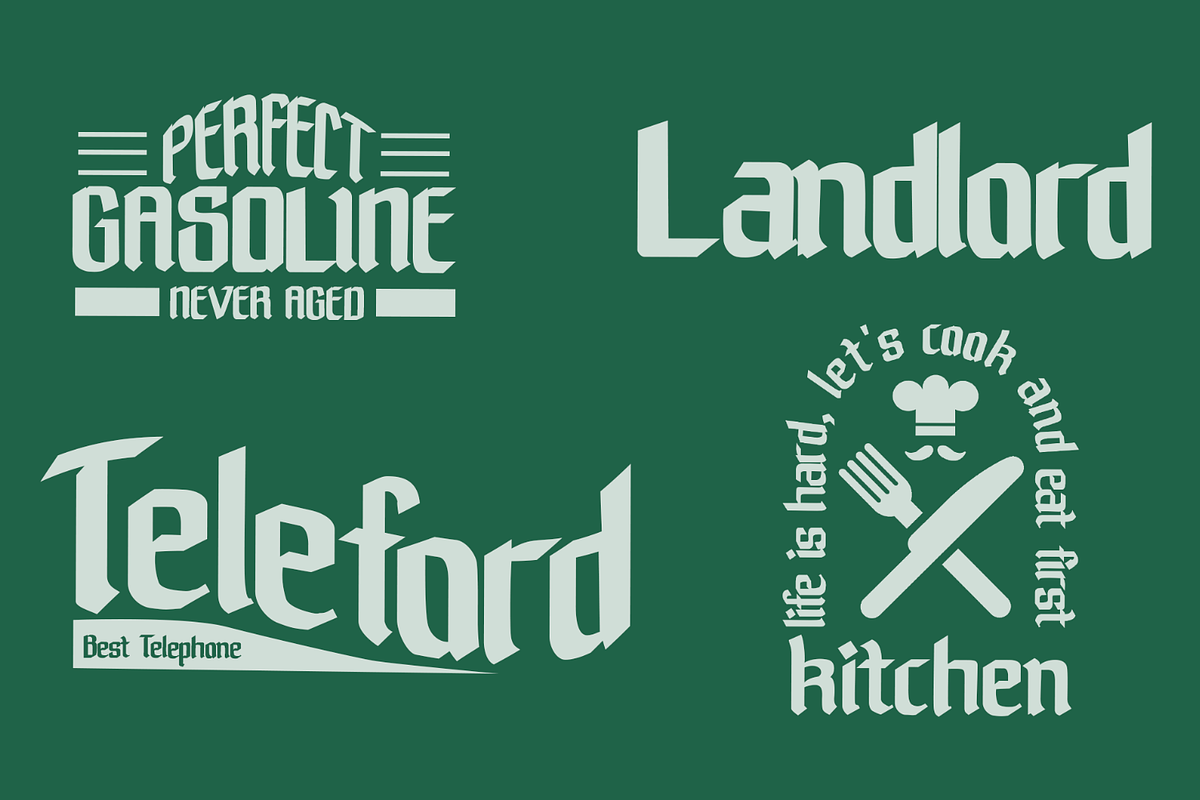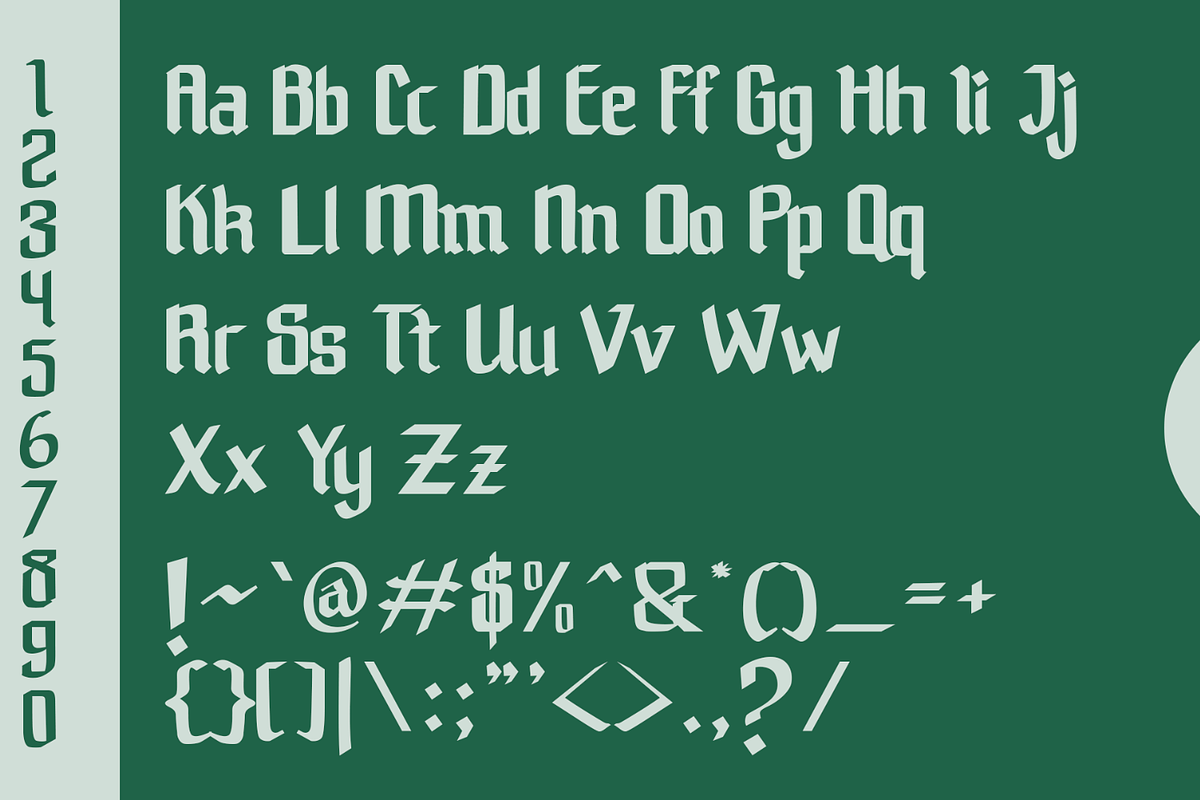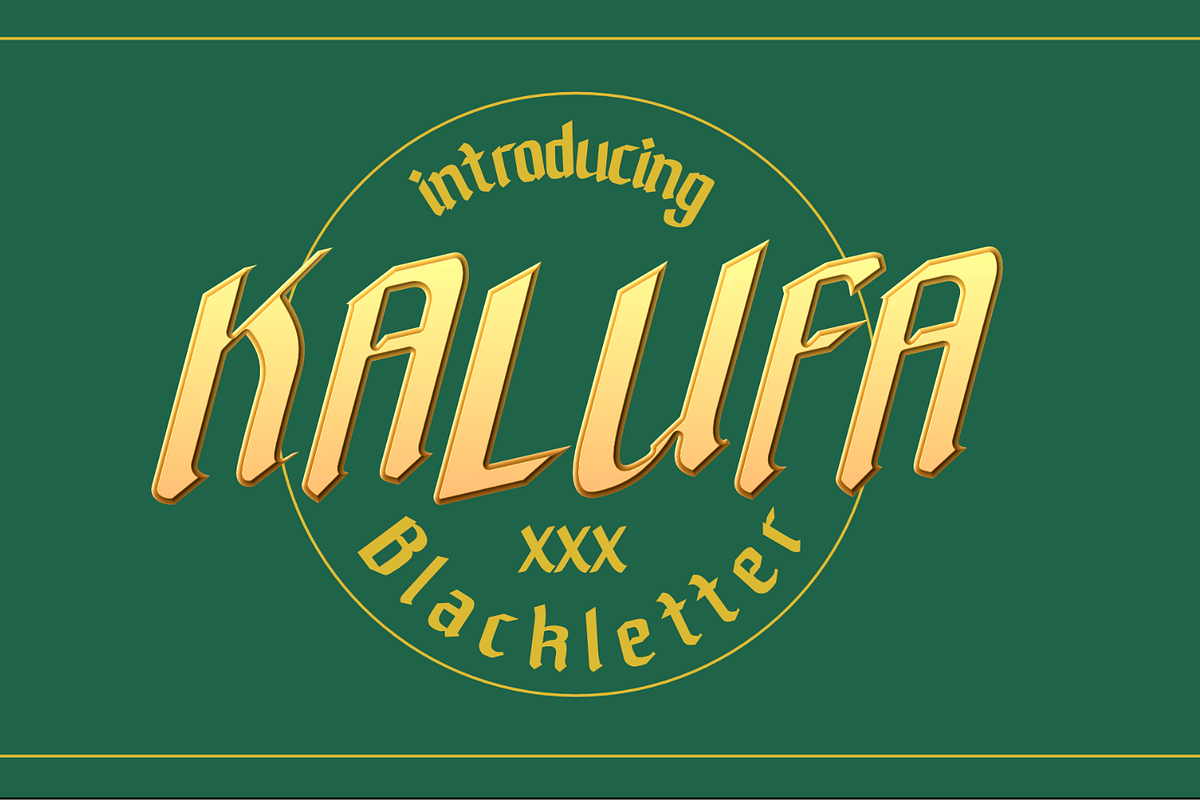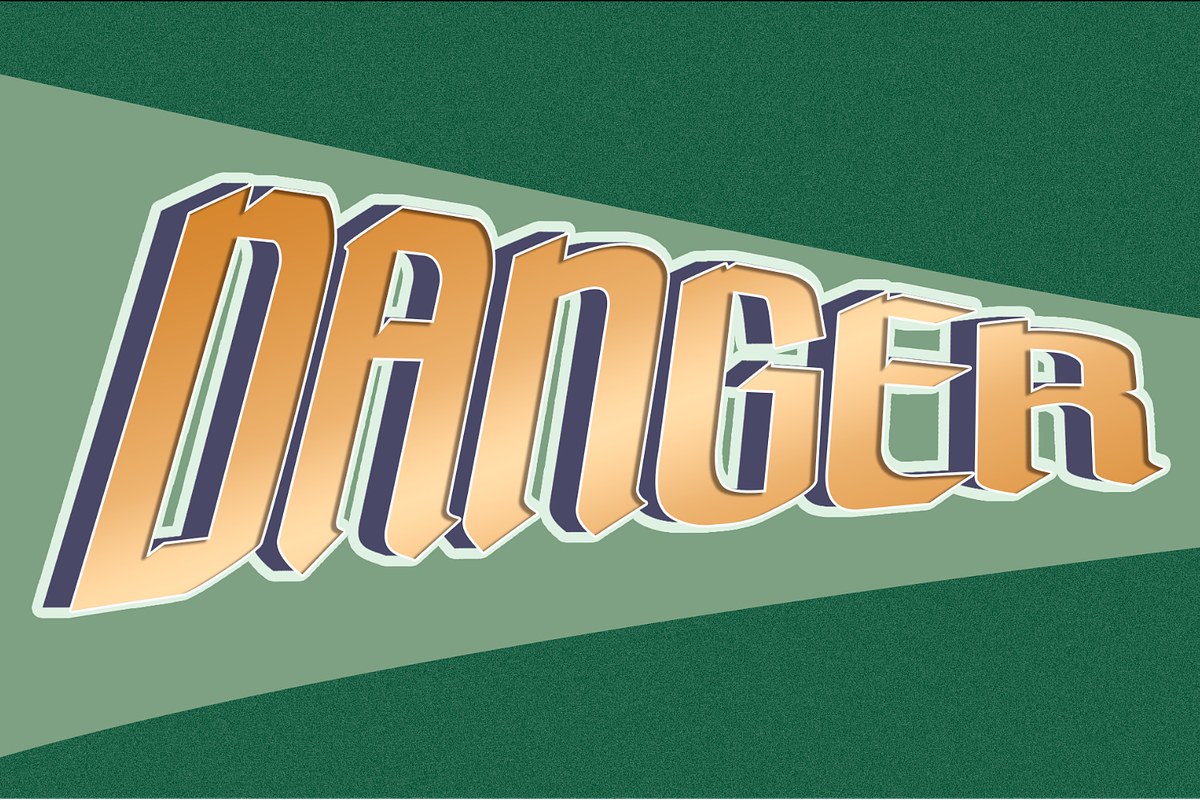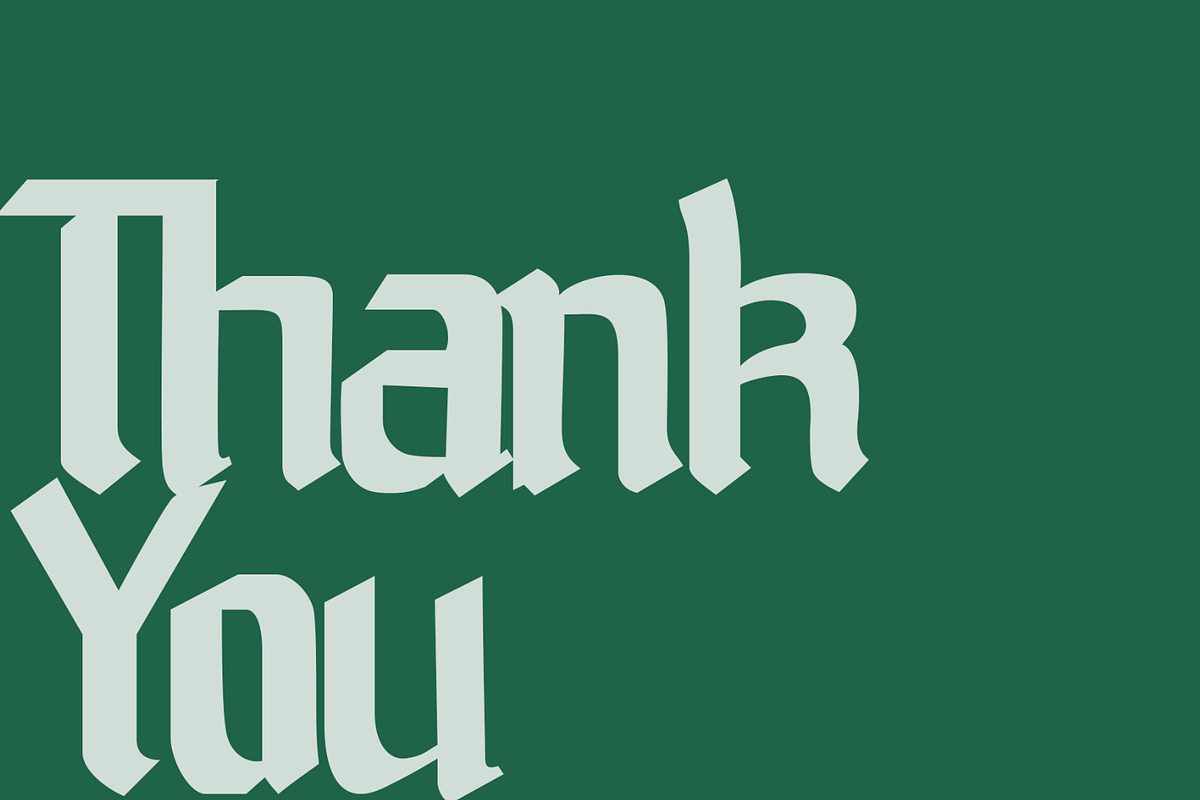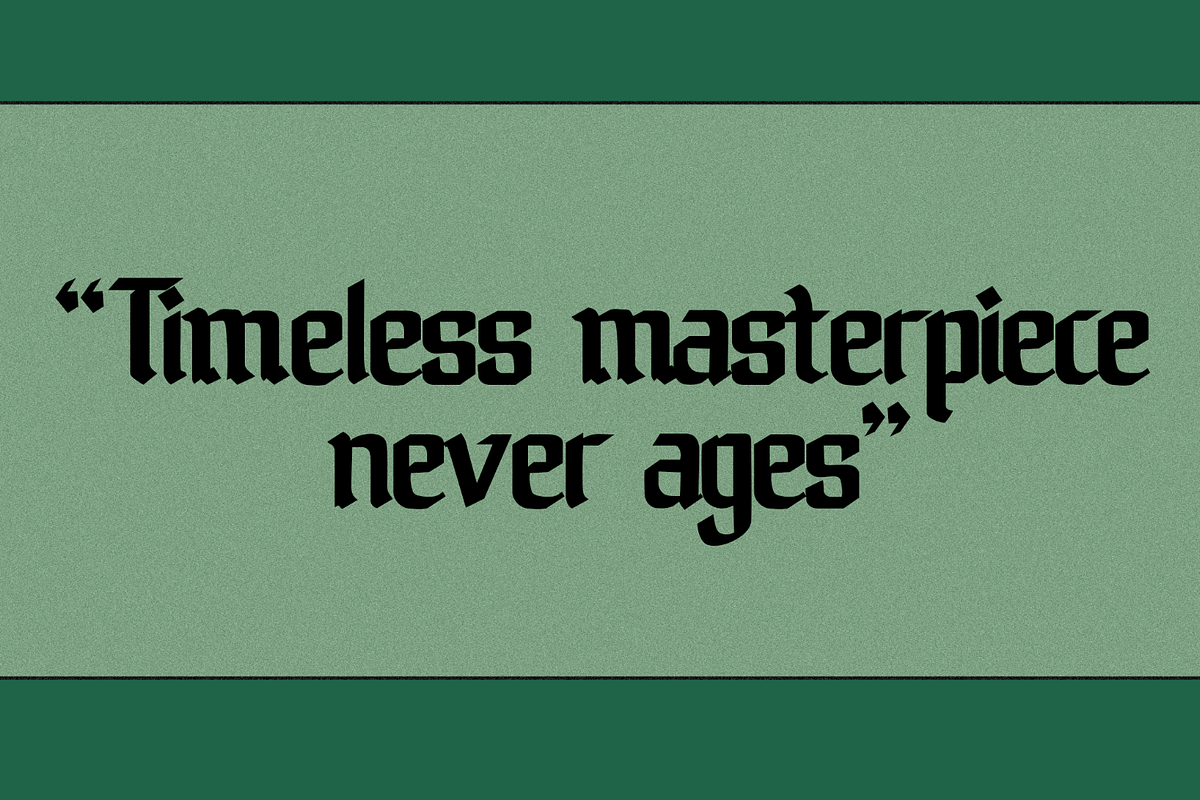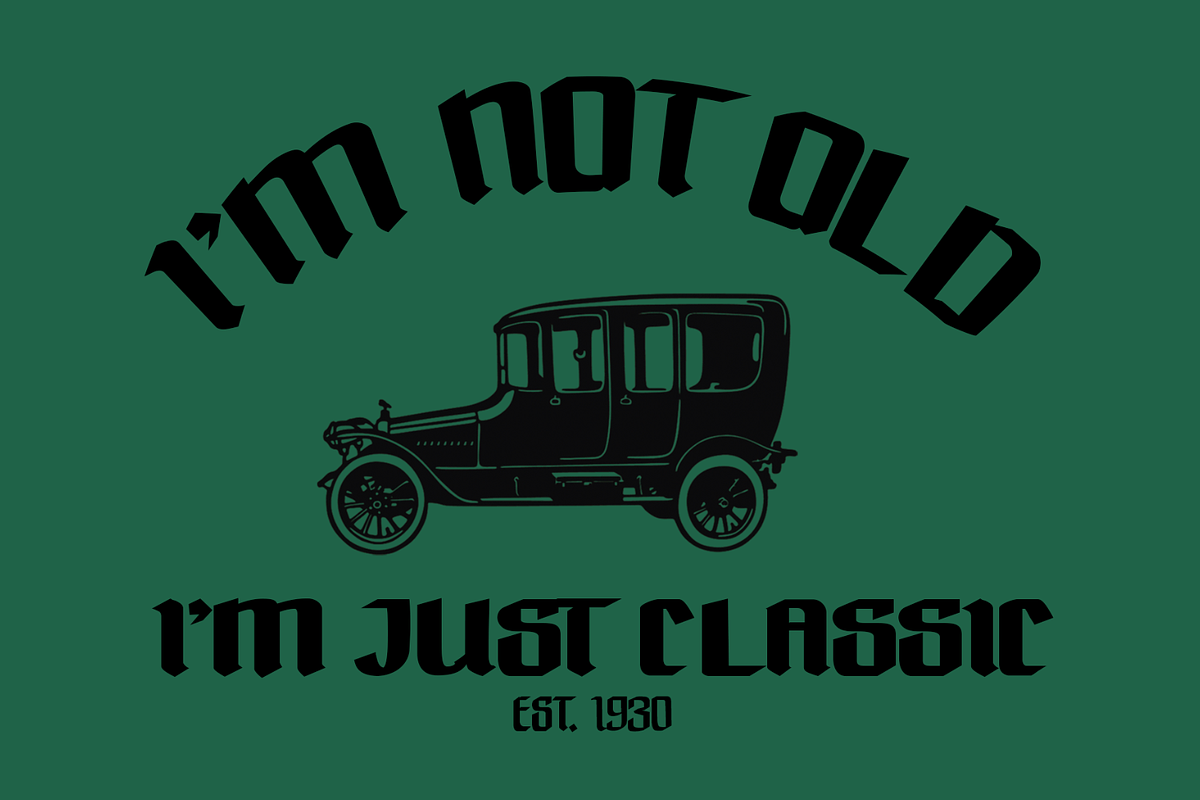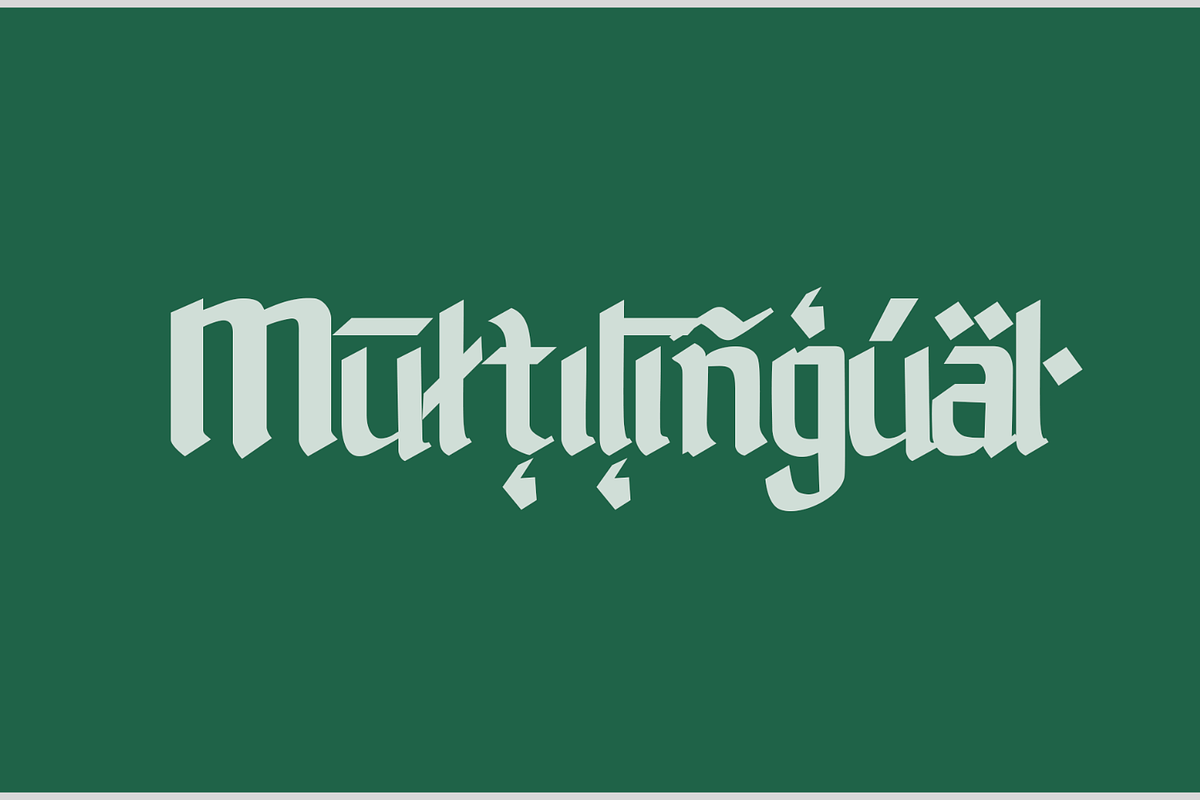
Kalufa | Blackletter
Introducing Kalufa, the blackletter font that exudes vintage and classic vibes, perfect for your display, logotype, title, headline, branding, movie display, art craft and many more. Its bold and intricate design will add a touch of elegance and sophistication to any project. Don't settle for ordinary fonts, upgrade to Kalufa and make a statement that stands the test of time. Try it out today and unleash your creativity!